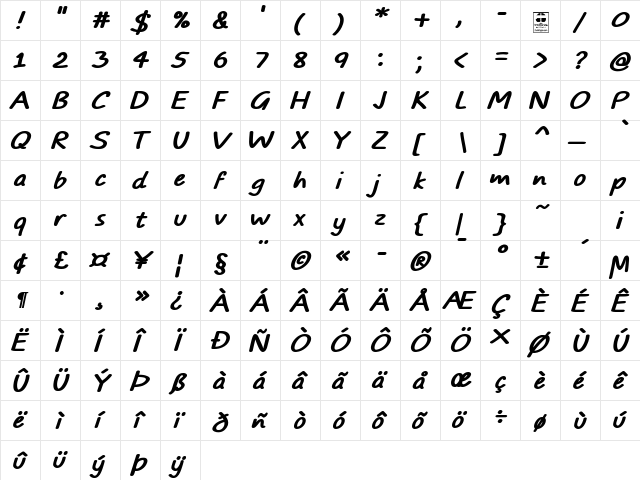
TYPO COMICS Bold Italic DEMO Regular
Design Context for TYPO COMICS Bold Italic DEMO Typeface
TYPO COMICS Bold Italic DEMO trades formality for fun, with bouncy, characterful letterforms that bring warmth and energy to any project. The slanted form adds forward momentum and visual energy.
Great for children's books, toy packaging, family event branding, and casual consumer-facing design.
Font Pairing: Pairs well with a rounded or humanist sans for body copy, maintaining the friendly tone without relying on TYPO COMICS Bold Italic DEMO to carry extended reading.
Pro Tip: Avoid using TYPO COMICS Bold Italic DEMO for long passages of text — it works best for headlines, labels, and short calls to action.